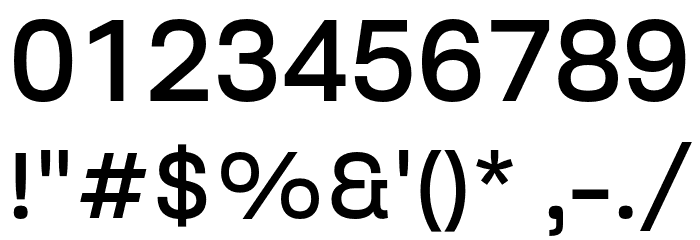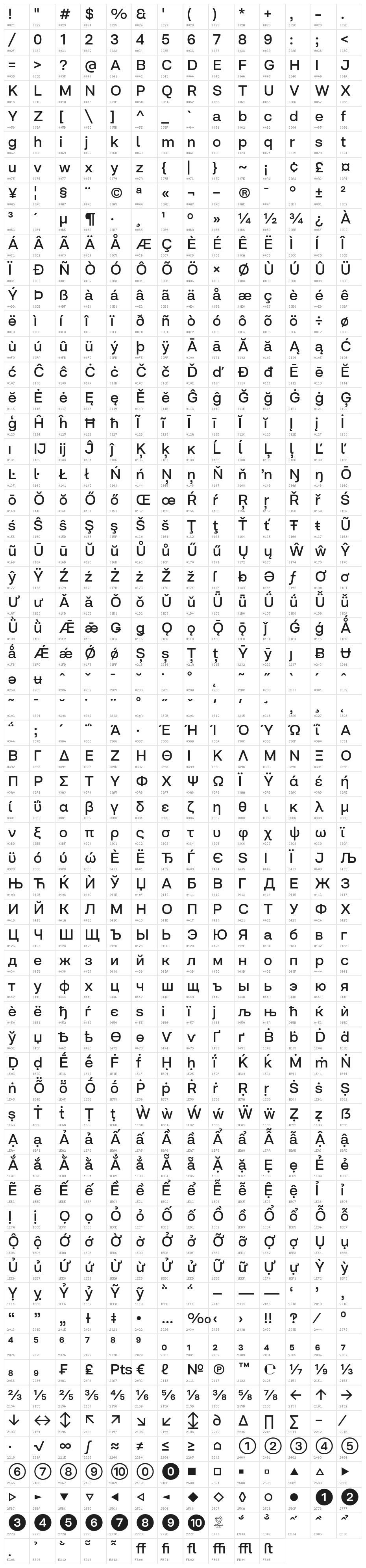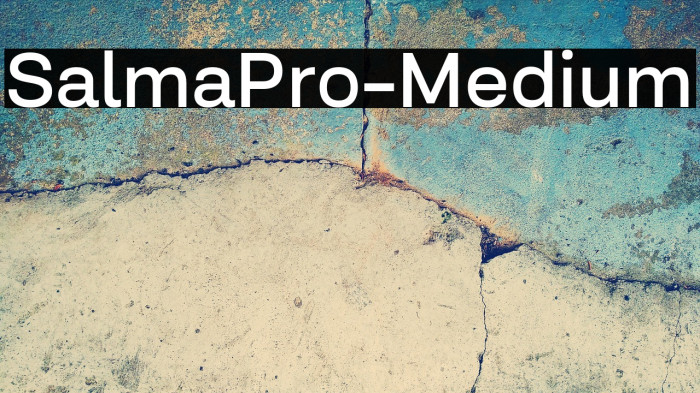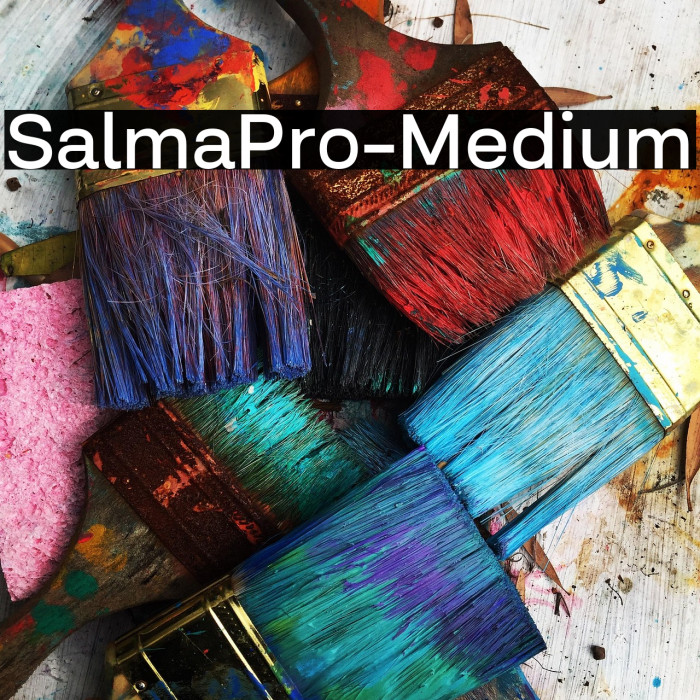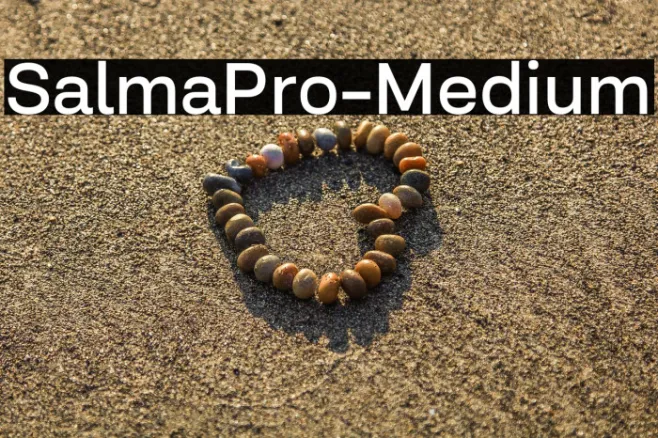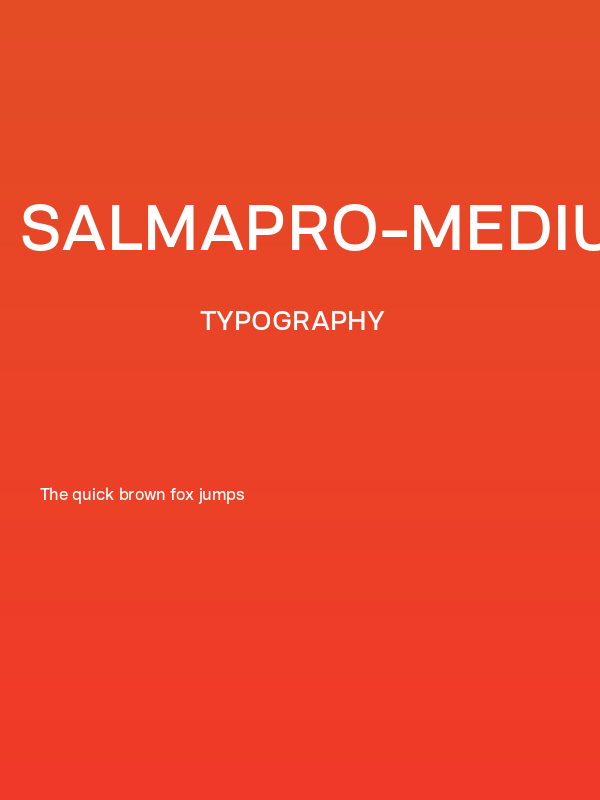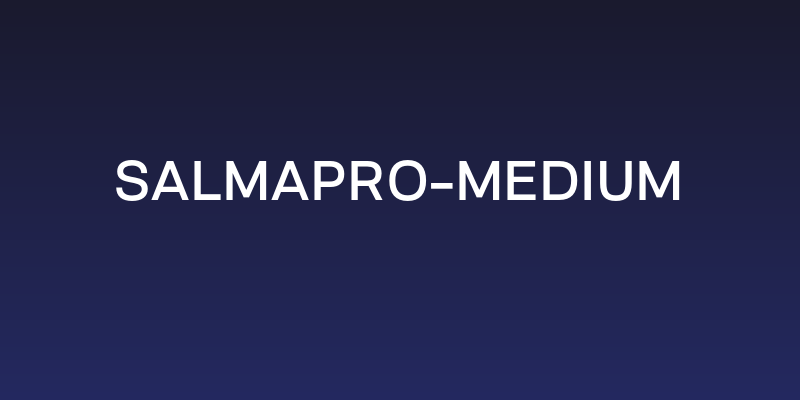
SalmaPro-Medium Font
SalmaPro-Medium Description
This typeface features a clean and modern sans-serif design, characterized by its geometric shapes and uniform stroke widths. The letters are well-proportioned, with a consistent height and width that ensures readability across various sizes. The uppercase letters are bold and assertive, while the lowercase letters maintain a friendly and approachable appearance. The numerals are clear and distinct, making them suitable for data presentation. Special characters are designed with simplicity in mind, ensuring they blend seamlessly with the rest of the typeface.
| Proposed Projects | Ideal for corporate branding, web design, and editorial layouts. |